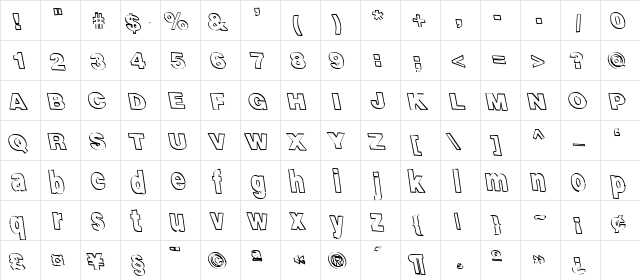
Gamma Scale Normal
Design Context for Gamma Scale Typeface
Gamma Scale is a composed and adaptable typeface that performs quietly and consistently across a wide range of design contexts.